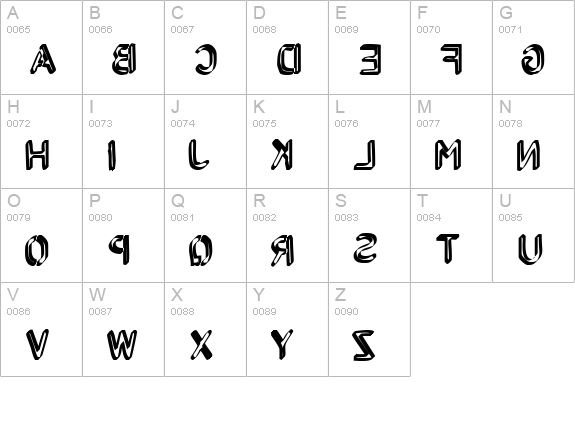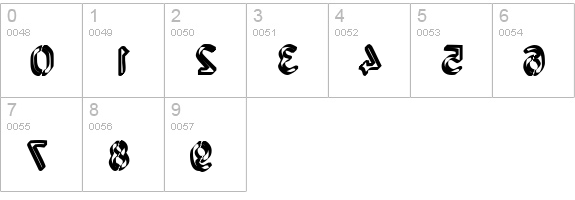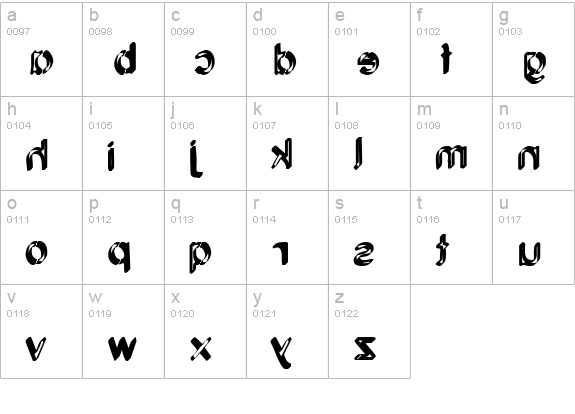
Backcab Original Font Details
Backcab Original font is a stunning display typeface that exudes elegance and sophistication. With its unique blend of sleek lines and vintage charm, this font is perfect for a wide range of creative projects. The classic yet modern design of Backcab Original makes it a versatile choice for logos, branding, packaging, posters, and more. And the best part? Backcab Original is available for free download at FontsMarket.com! This means you can add a touch of timeless style to your designs without breaking the bank. Don't miss out on the opportunity to elevate your projects with this gorgeous font that is both stylish and budget-friendly. Download Backcab Original today and let your creativity shine!